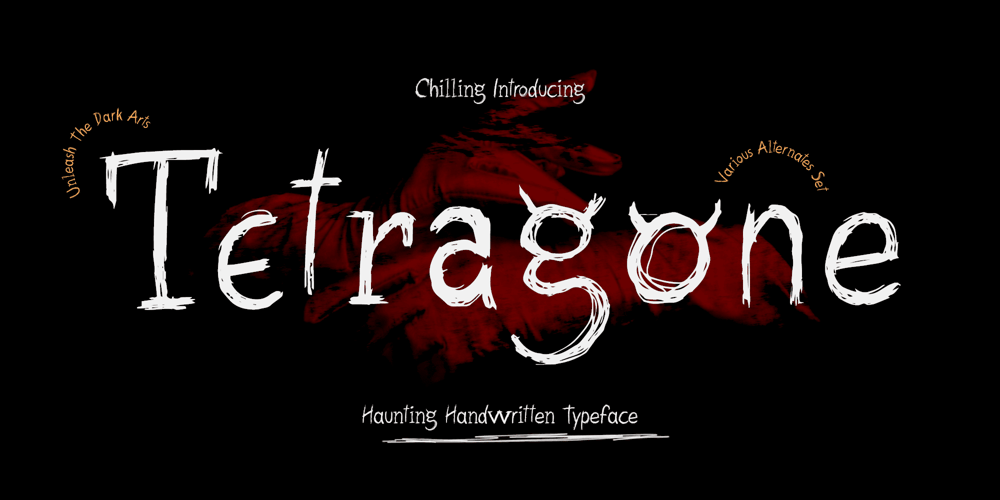
Tetragone
Tetragone font
Tetragone Font Family was designed by Dede Kurniawan and published by Creatifont Studio. Tetragone contains 1 styles and family package options. Tetragone – is a handwritten type font that oozes a chilling, horror ambiance. With every letter handcrafted feel that’s reminiscent of forbidden incantations and haunted diaries. Tetragone invites you to explore the darker corners of your imagination, making it the perfect choice for projects that demand an unsettling, supernatural vibe. Tetragone font provides you with several different alternates of ligature to maximize your design experience.A SUMMARY OF WHAT’S INCLUDED: Standard Character A-Z, a-z, 0-9, Punctuation & symbols three alternates on each glyphs Works on PC & Mac Simple installation Accessible in Adobe Creative Suite (Ai, Ps, Id, etc.) even work on Microsoft Word. PUA Encoded Characters – Fully accessible without additional design software. 🌟If you come across any issues or notice anything we might have overlooked while using this product, please feel free to reach out to us. We greatly value your feedback as it helps us enhance and refine our products. Thank you!